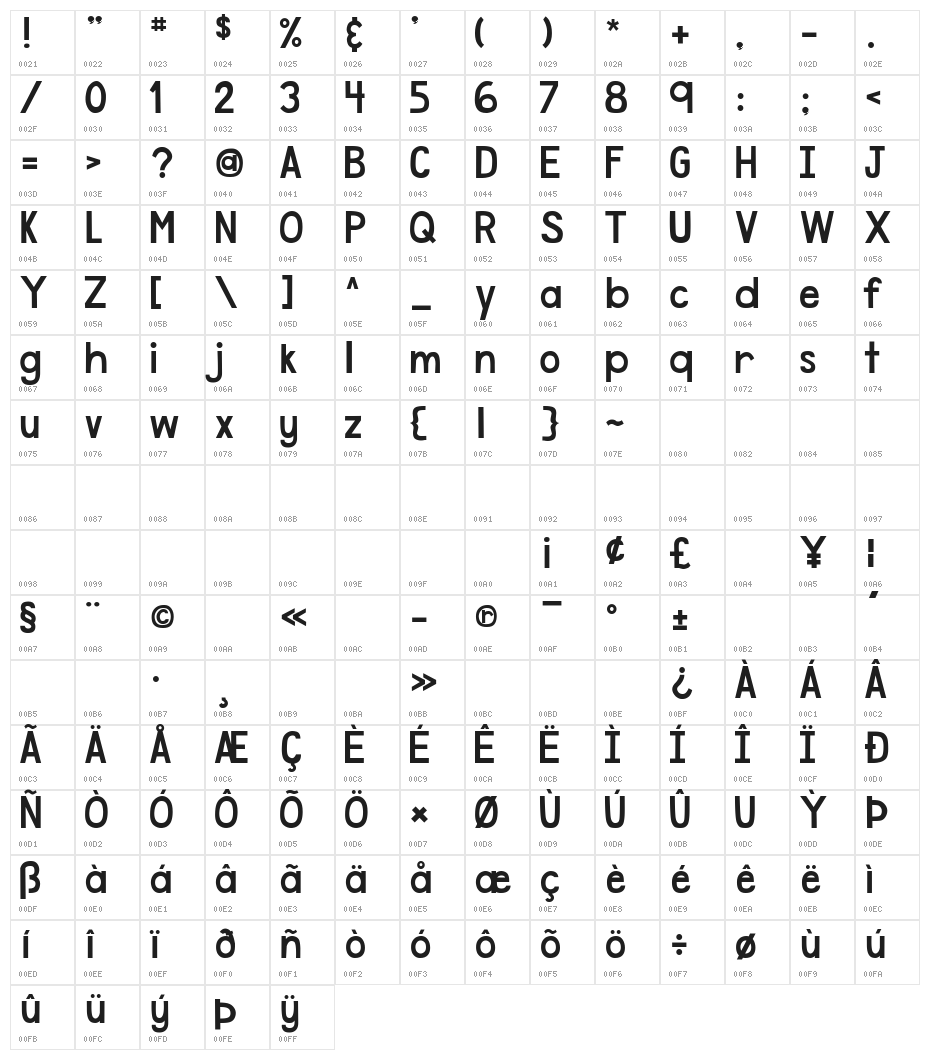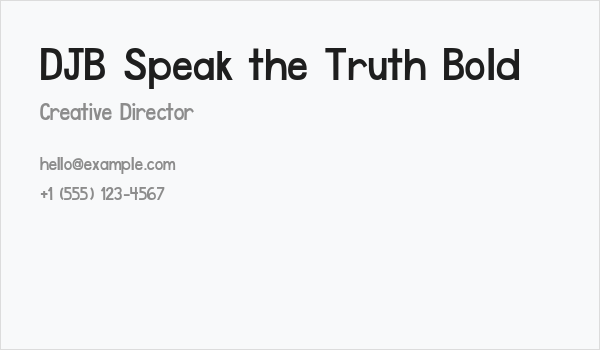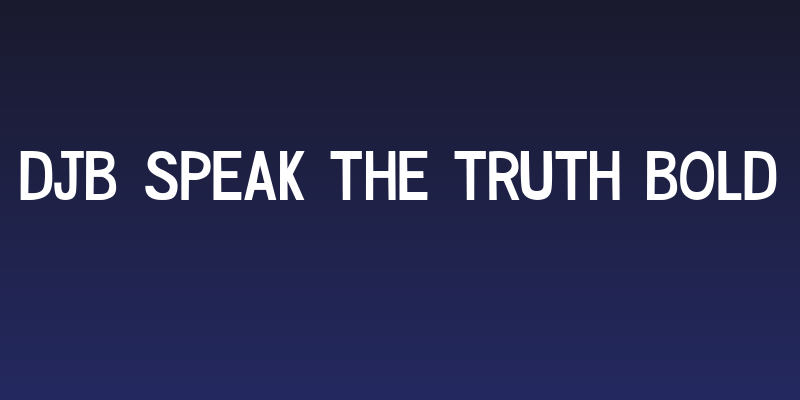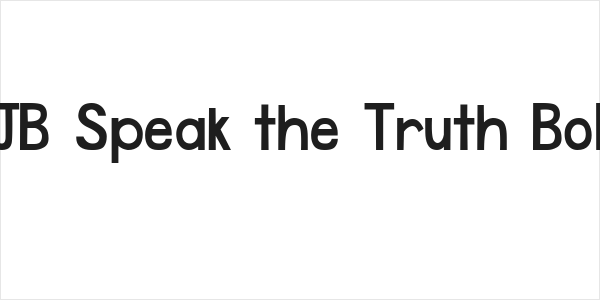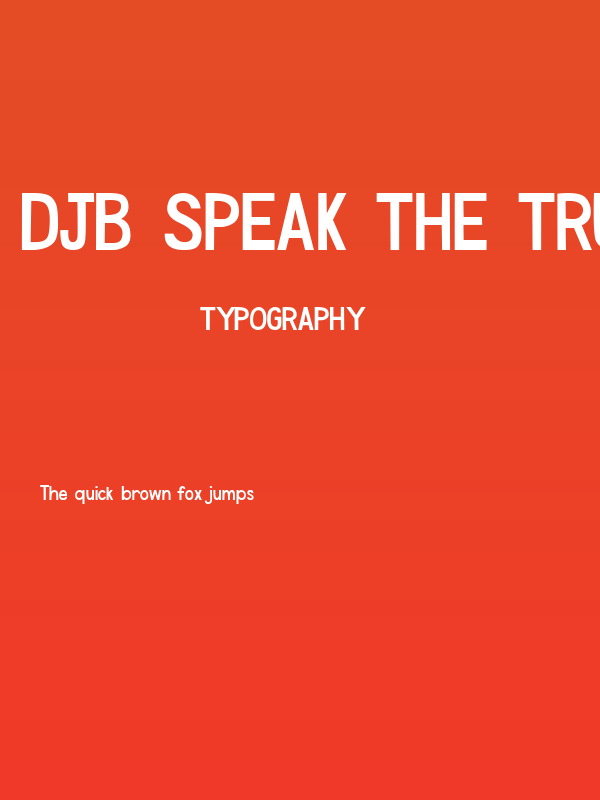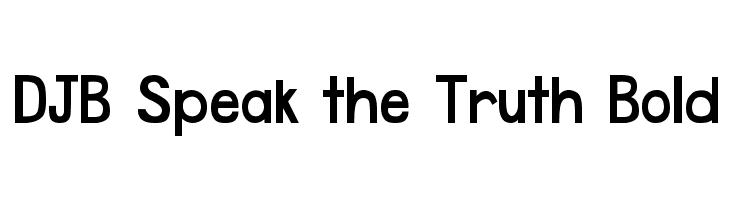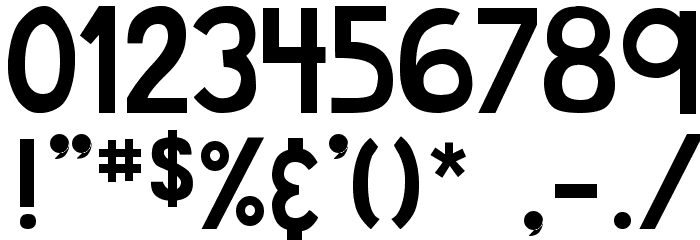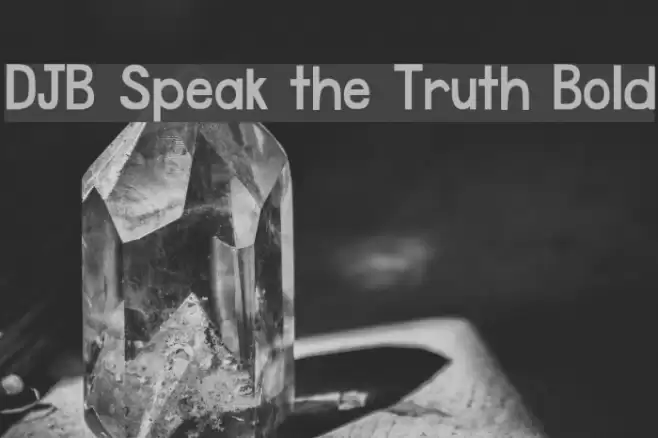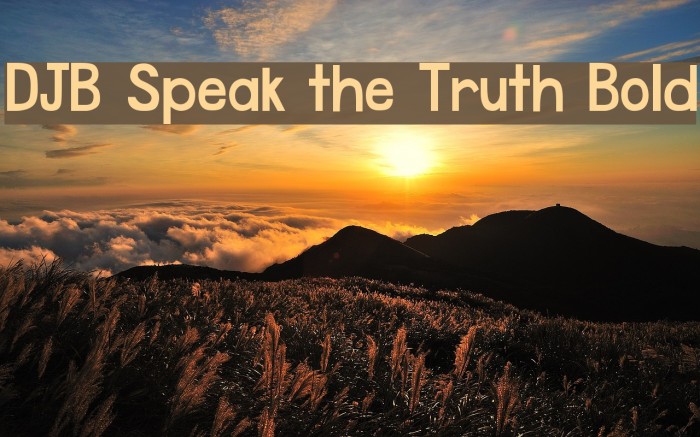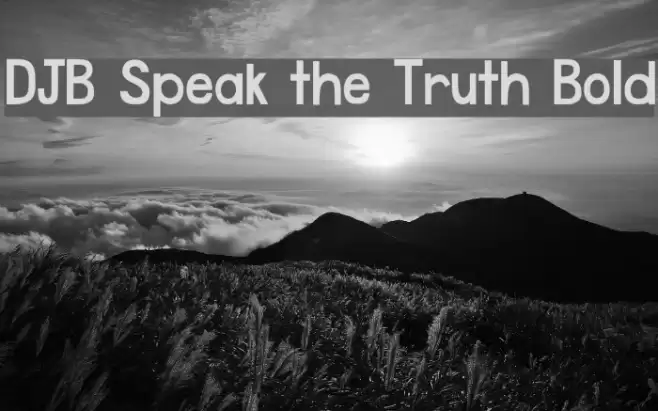
DJB Speak the Truth Bold Font
DJB Speak the Truth Bold Description
| Proposed Projects | Ideal for branding, headlines, posters, and digital content where clarity and impact are essential. |